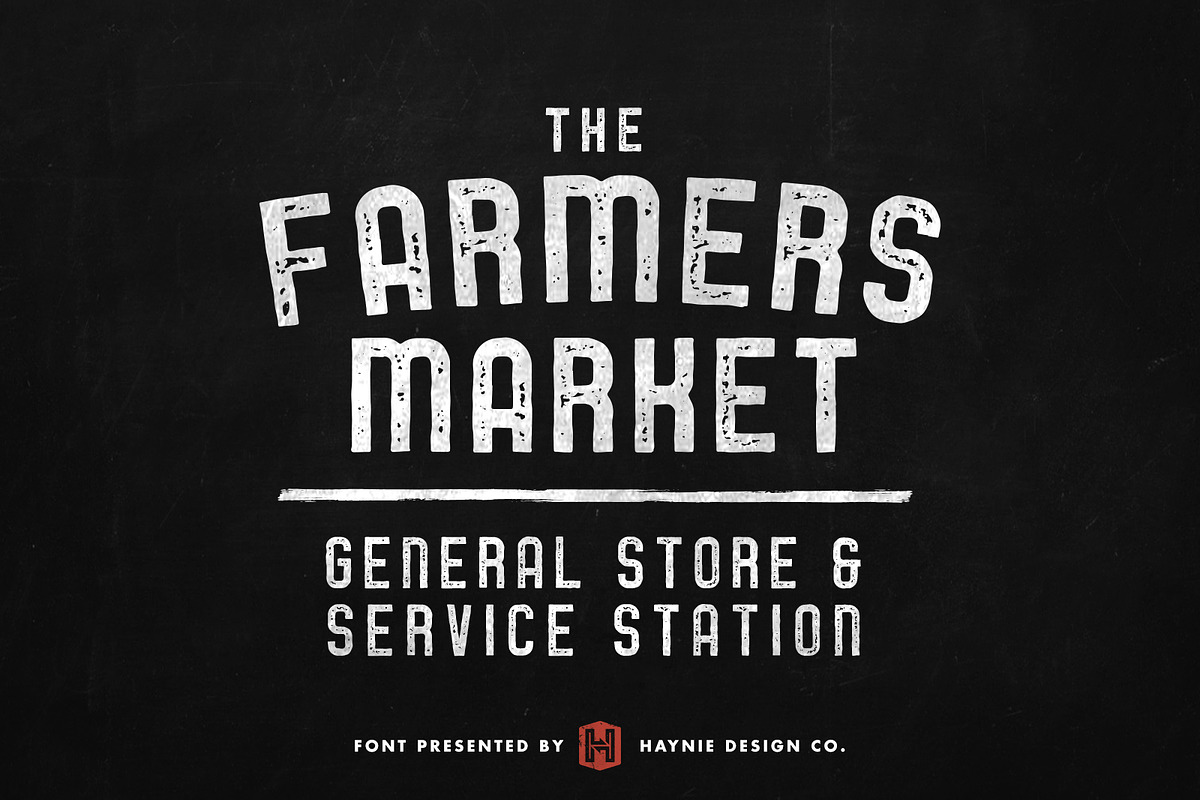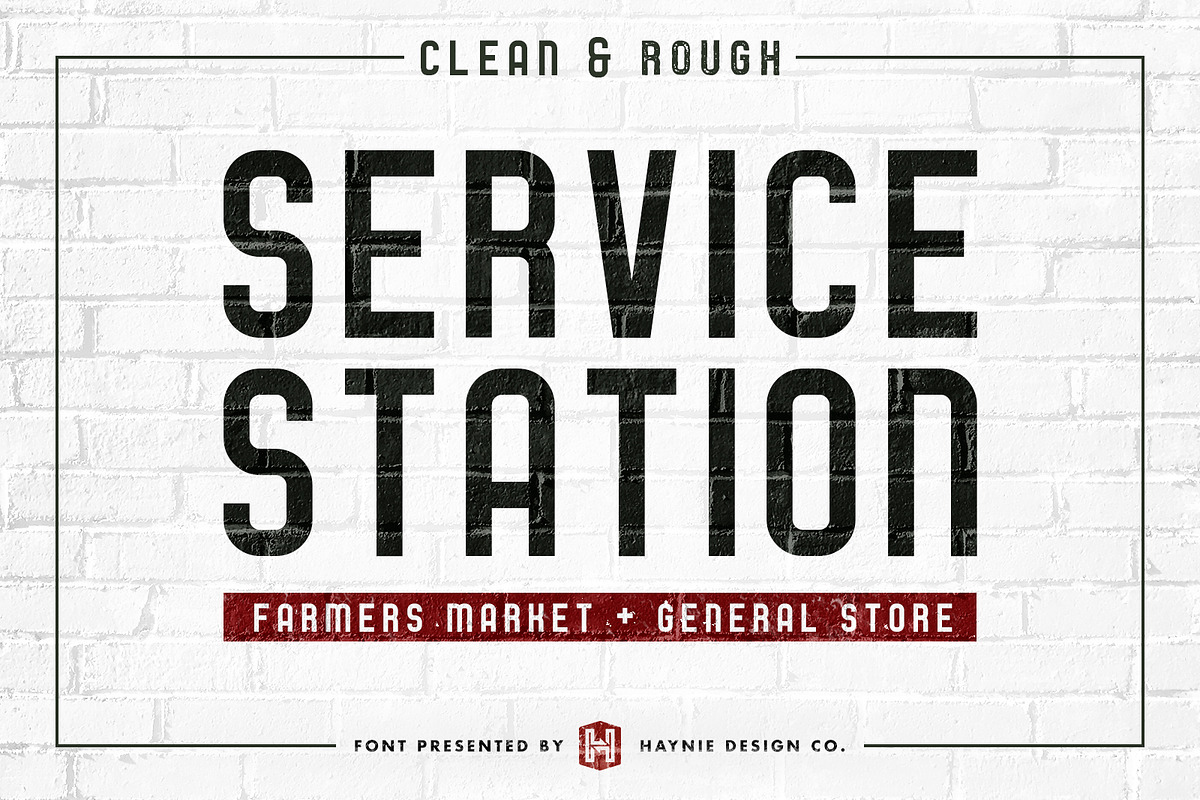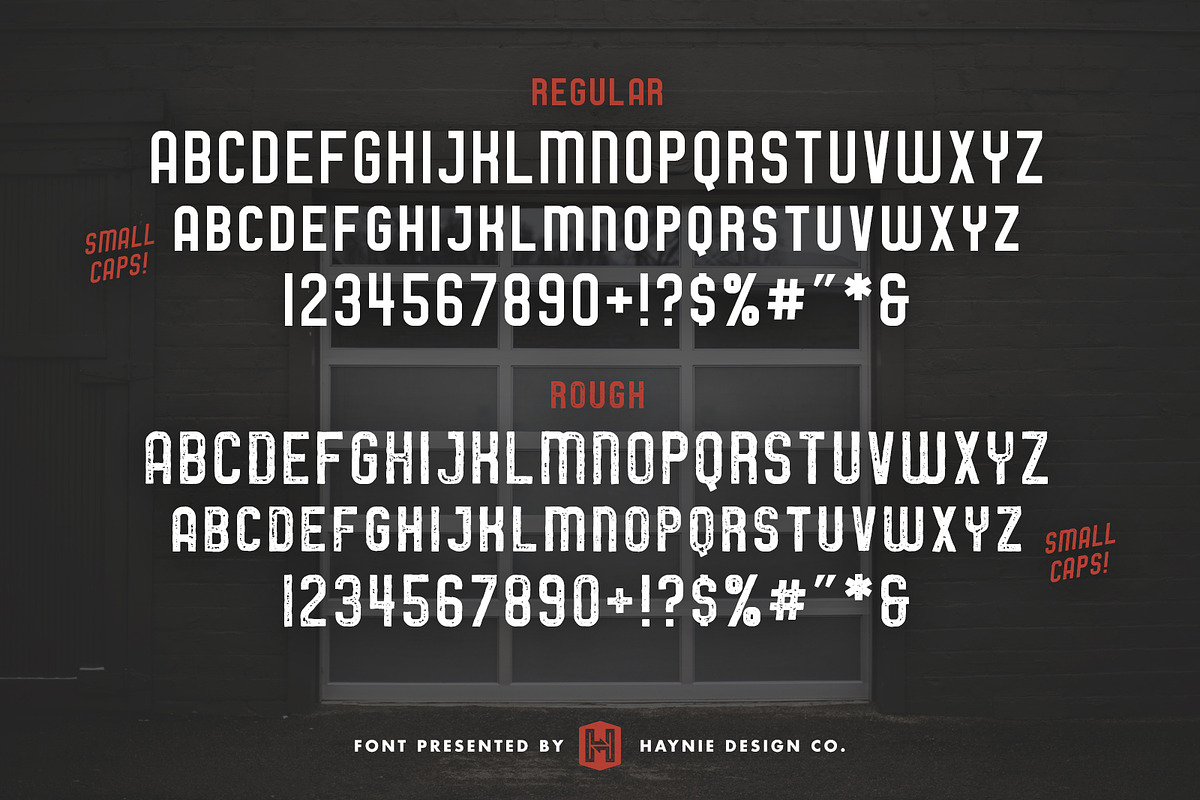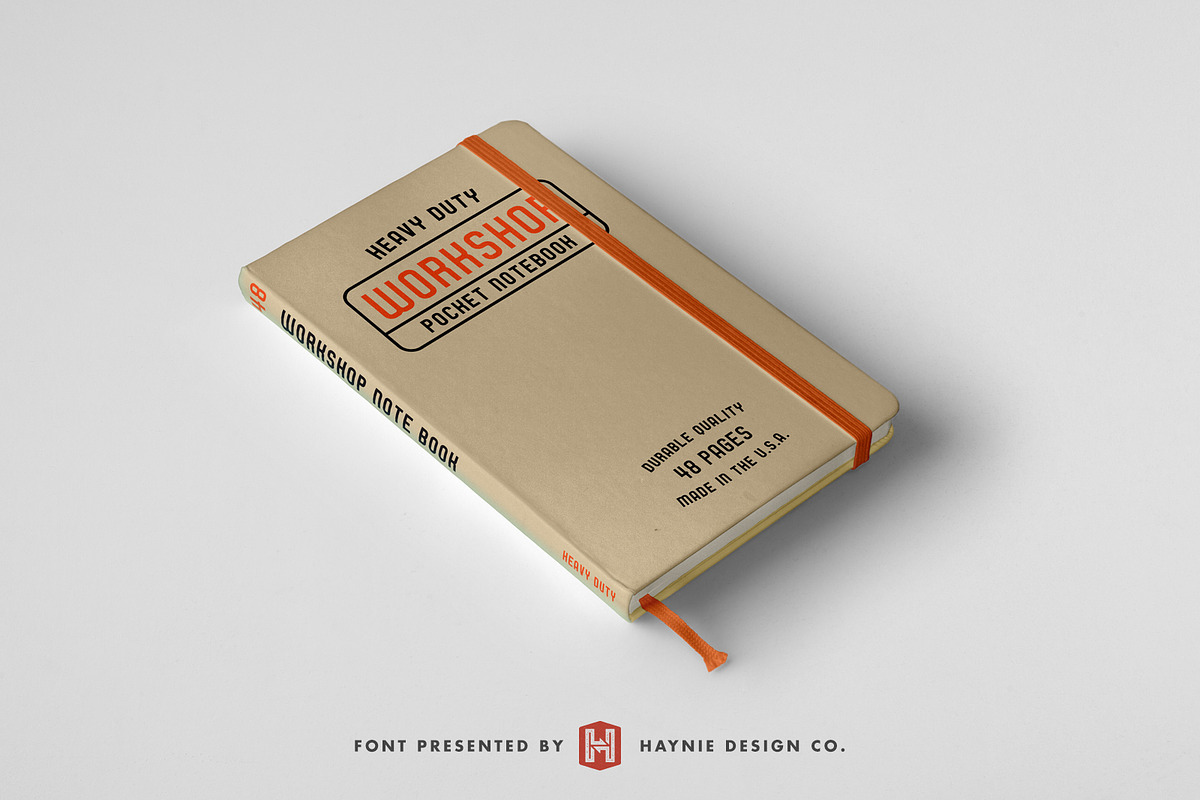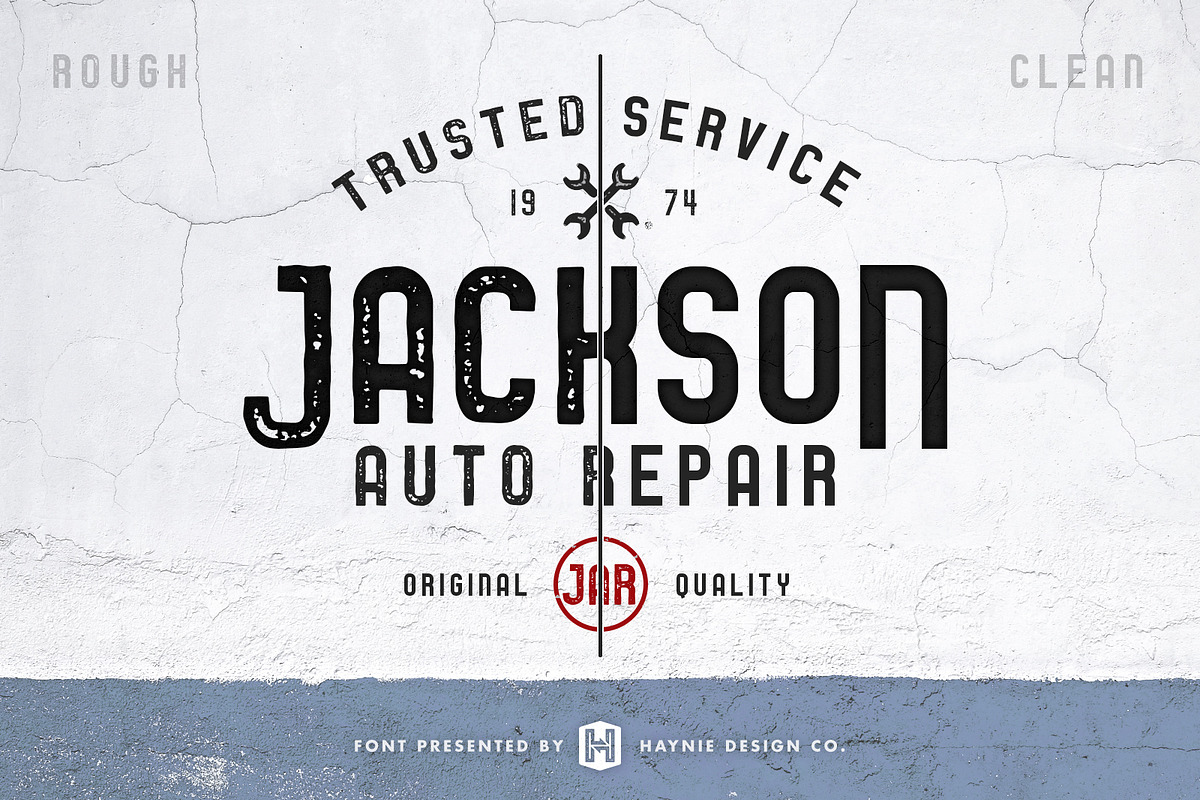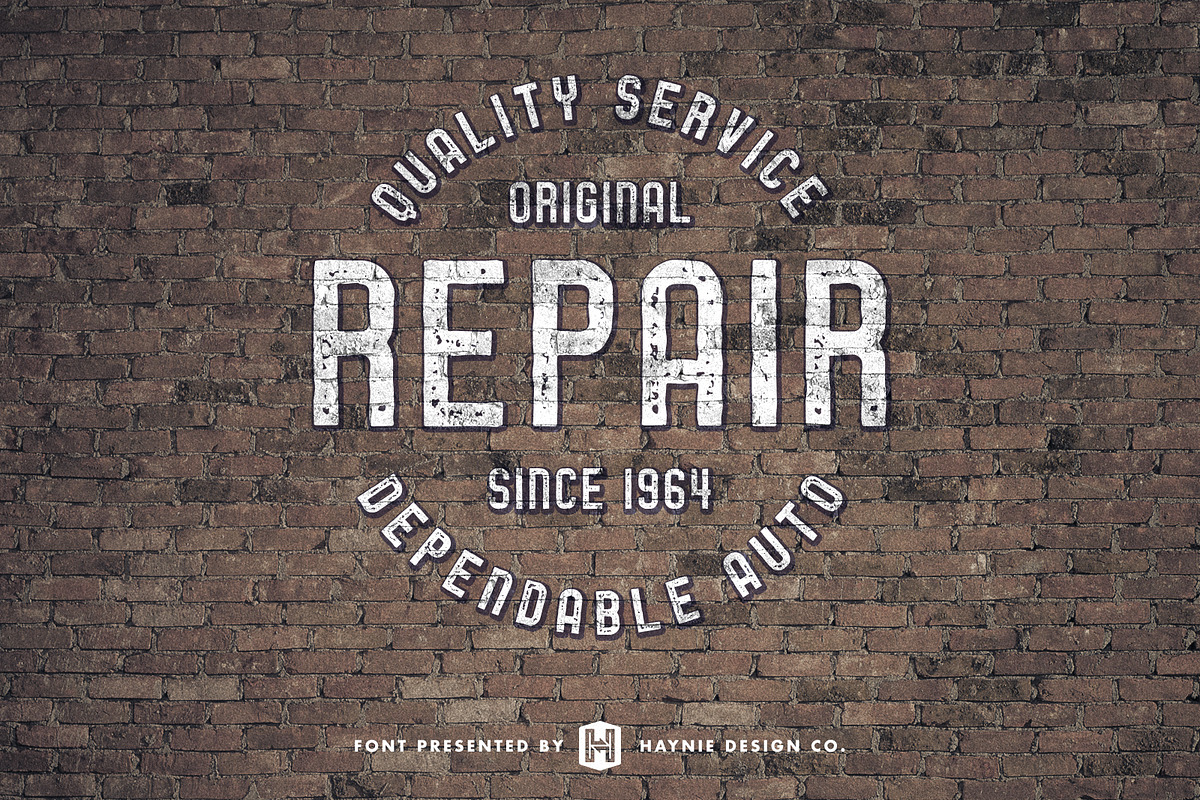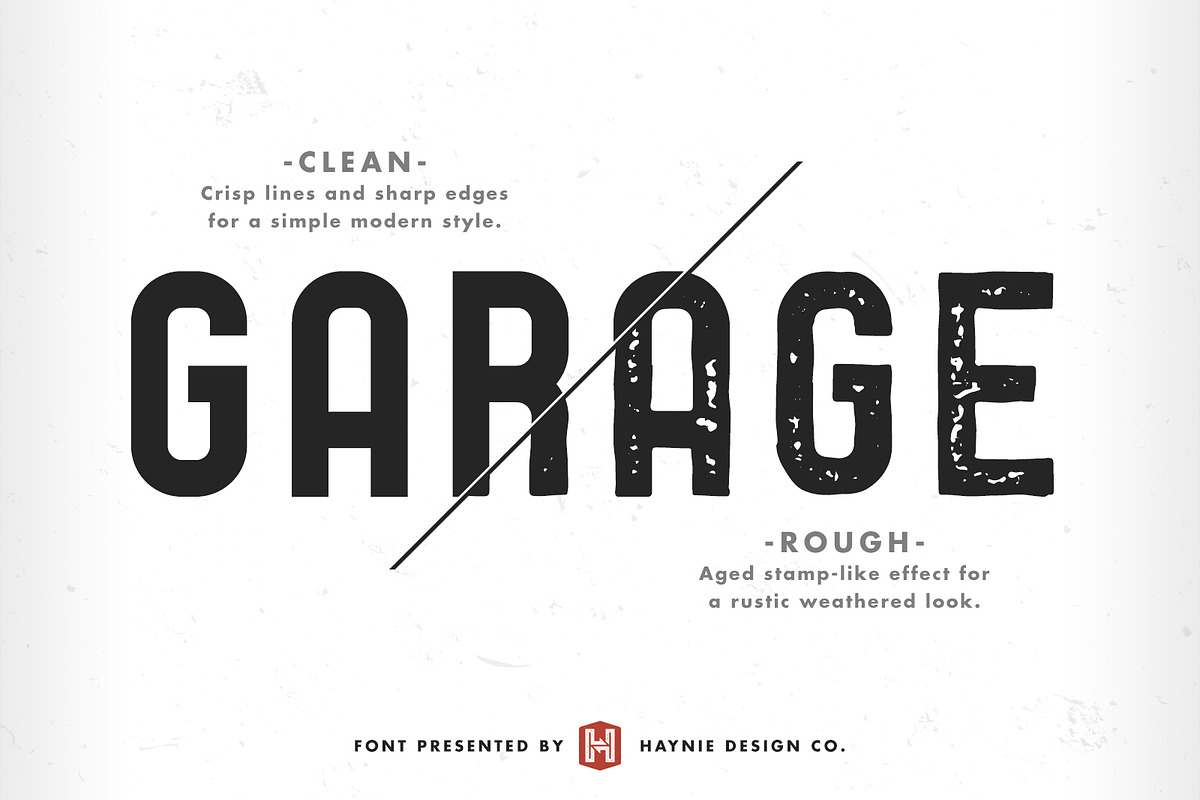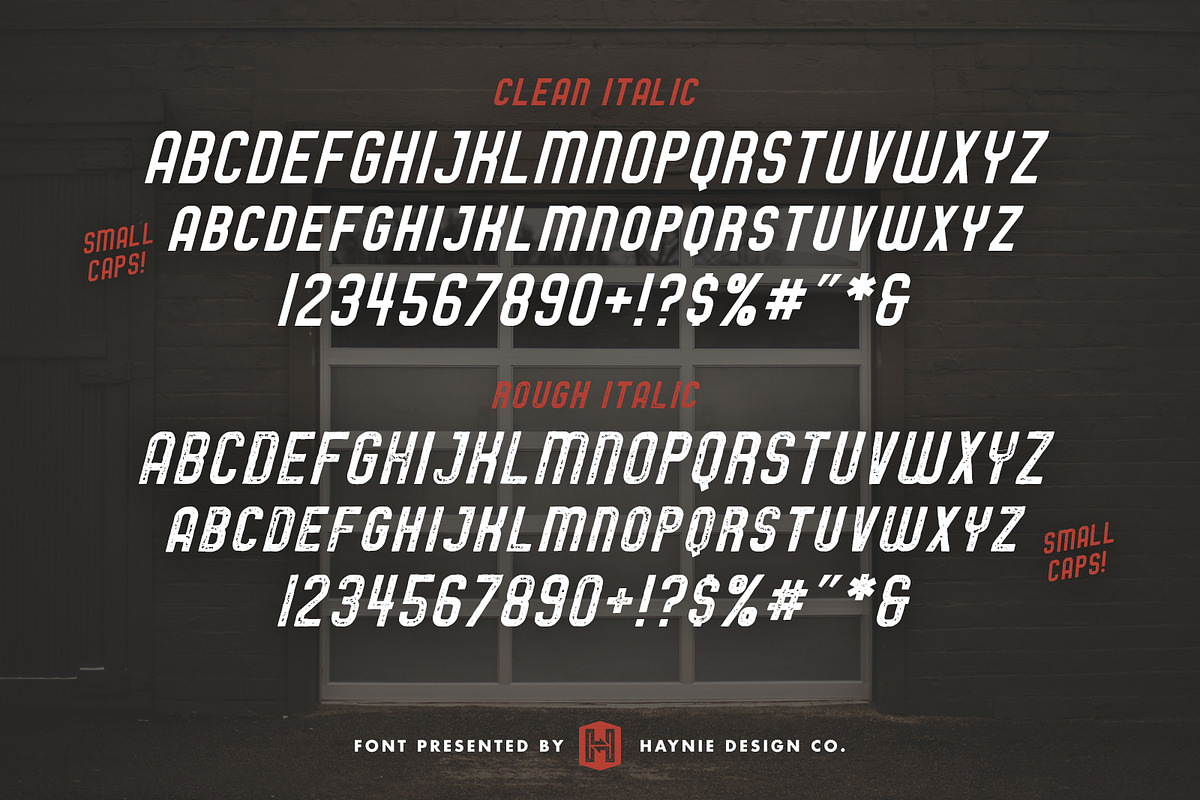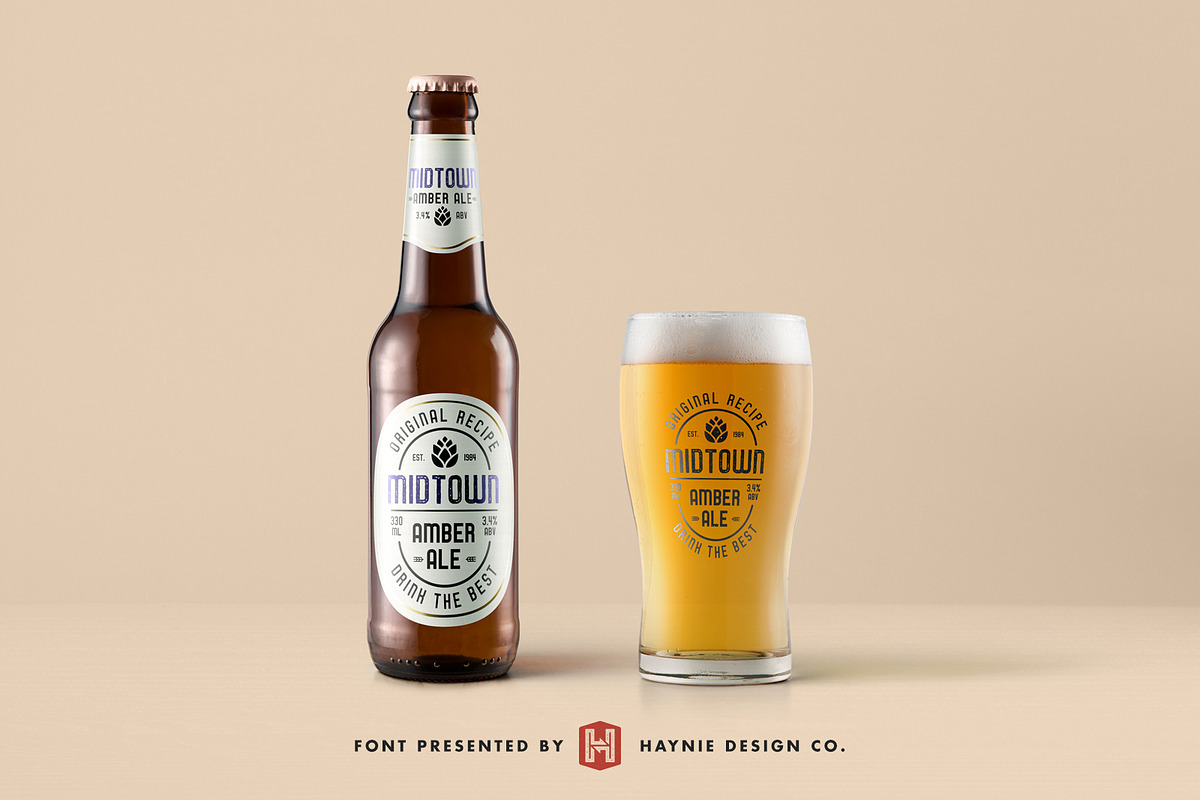
Service Station Vintage Market Font
Inspired by the classic styles of vintage signage, retro gas stations, and old repair shops. Service Station calls back to these industrial styles of yesteryear, while also pulling inspiration from various vintage marts, farmers markets, and general stores.
The classic hometown aesthetic can be applied to signage, logos, packaging, t-shirts, and much more. Service Station just gets the job done. It is a no nonsense typeface, and is a versatile go-to for vintage and contemporary projects alike.
Service Station features small caps, italics, regular and rough versions. Regular is clean with sharp lines and curves, rough features an aged ink stamp-like style for a vintage feel.
- Regular (Clean) & Rough versions
- Italics in both versions
- Small caps lowercase characters